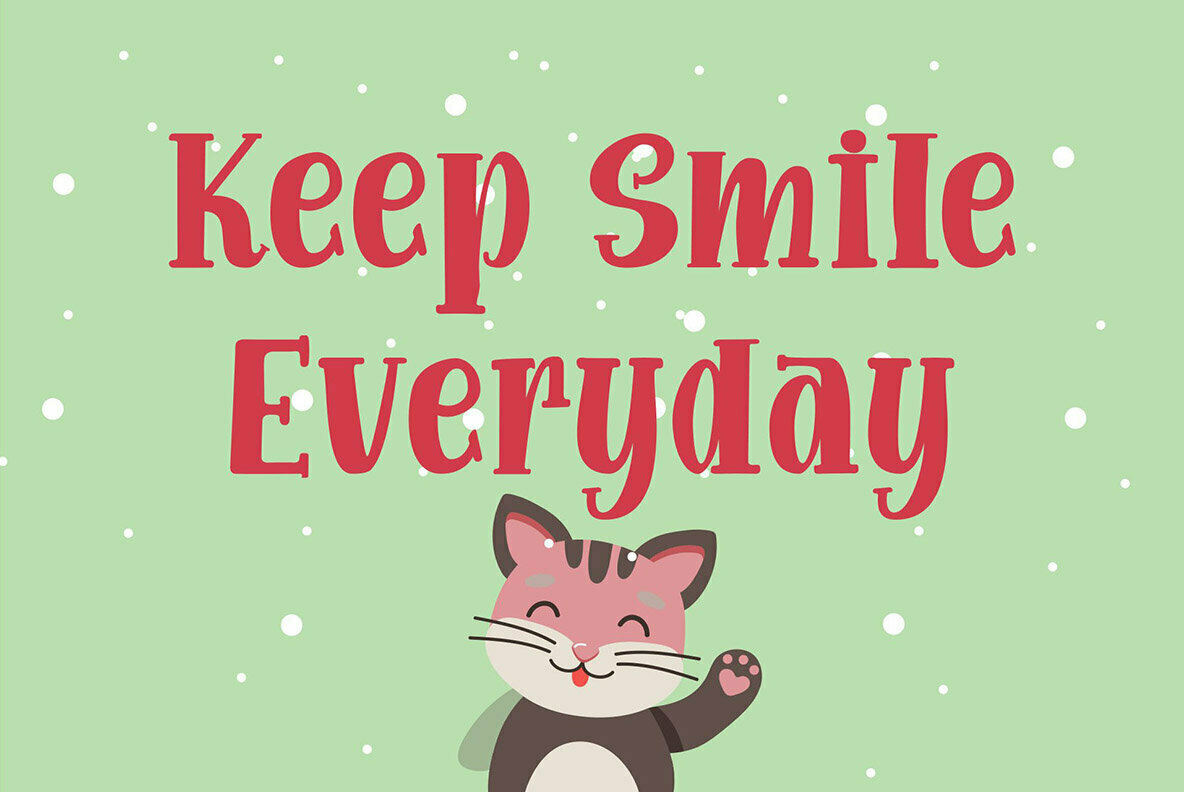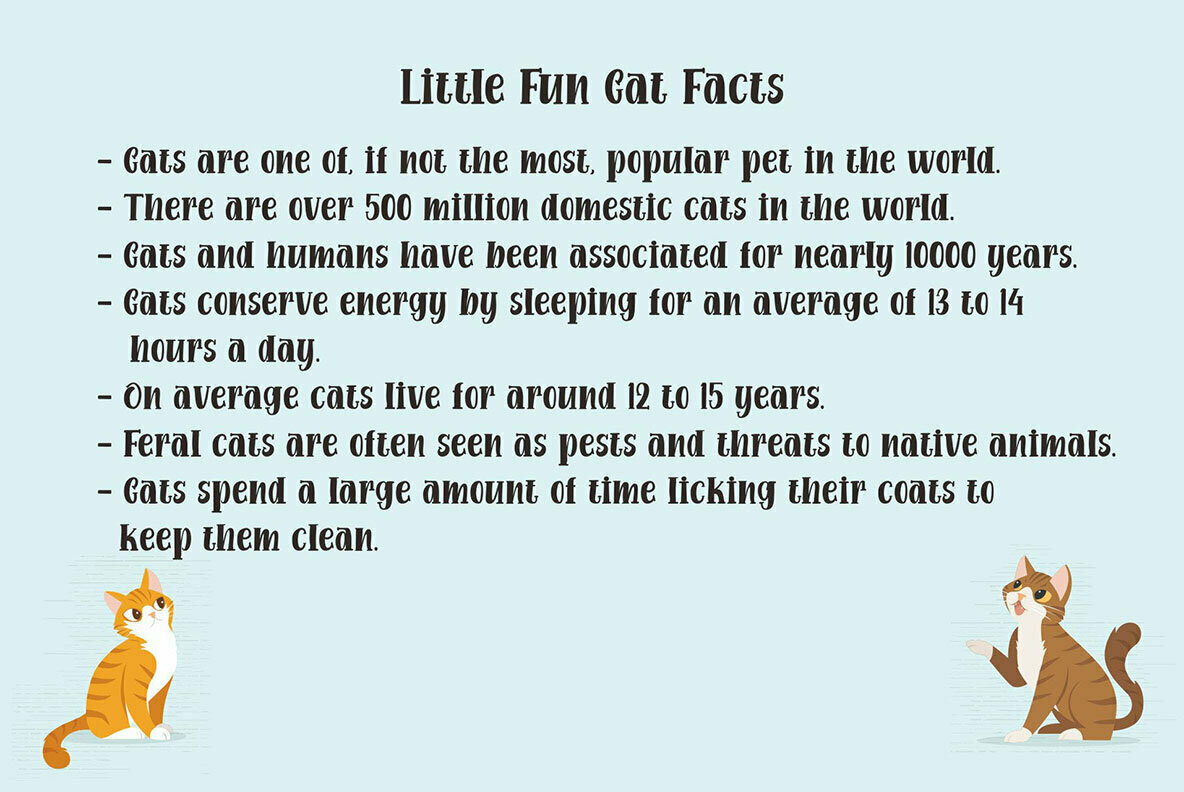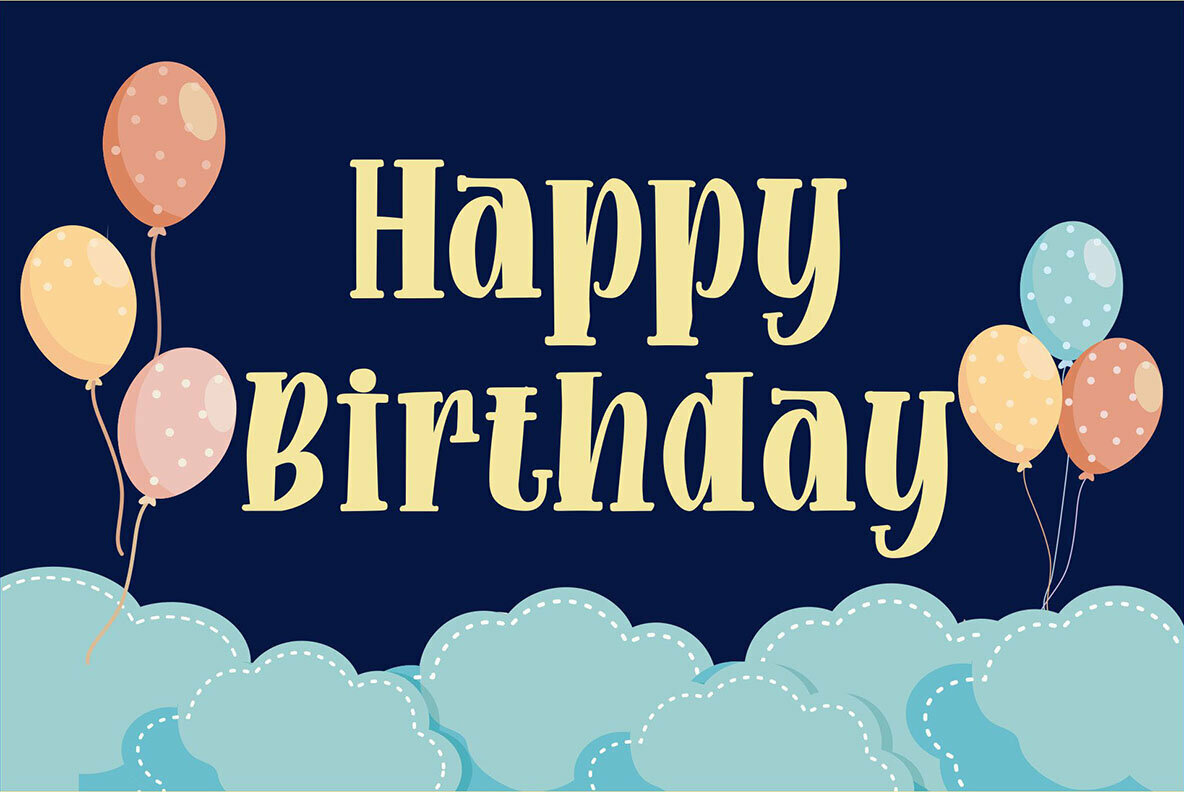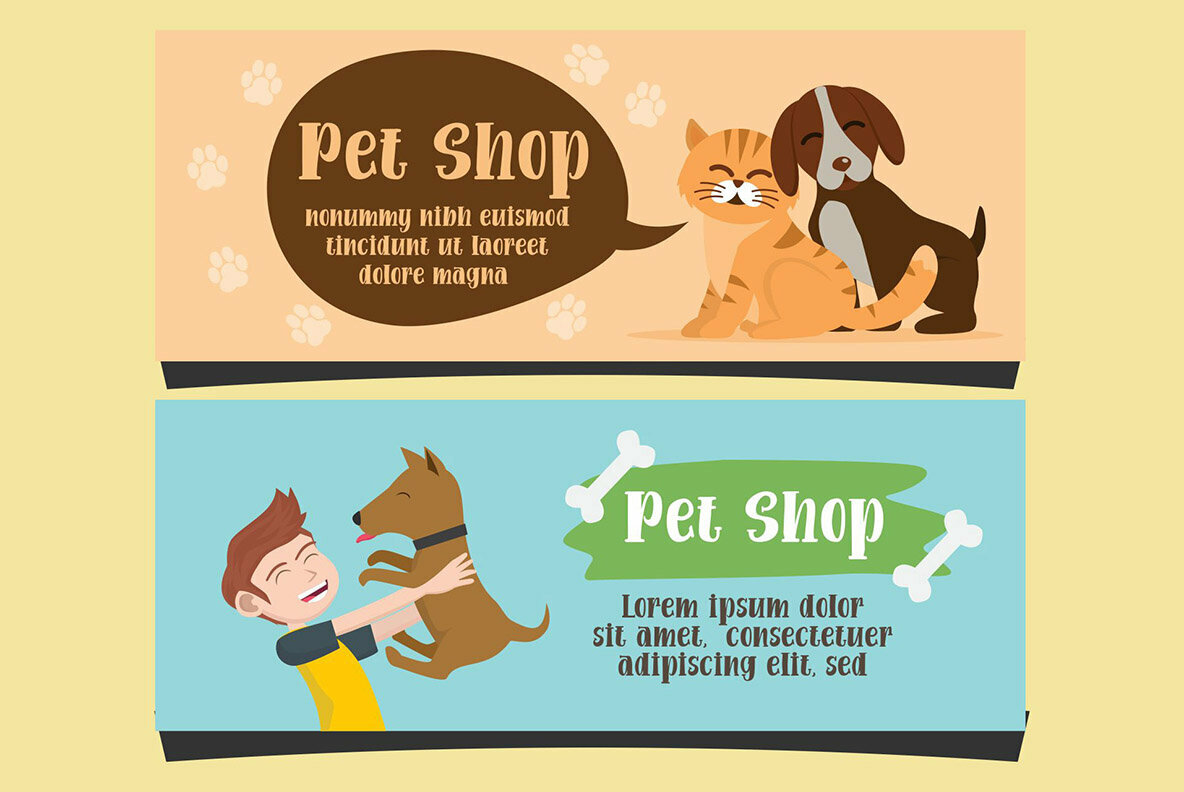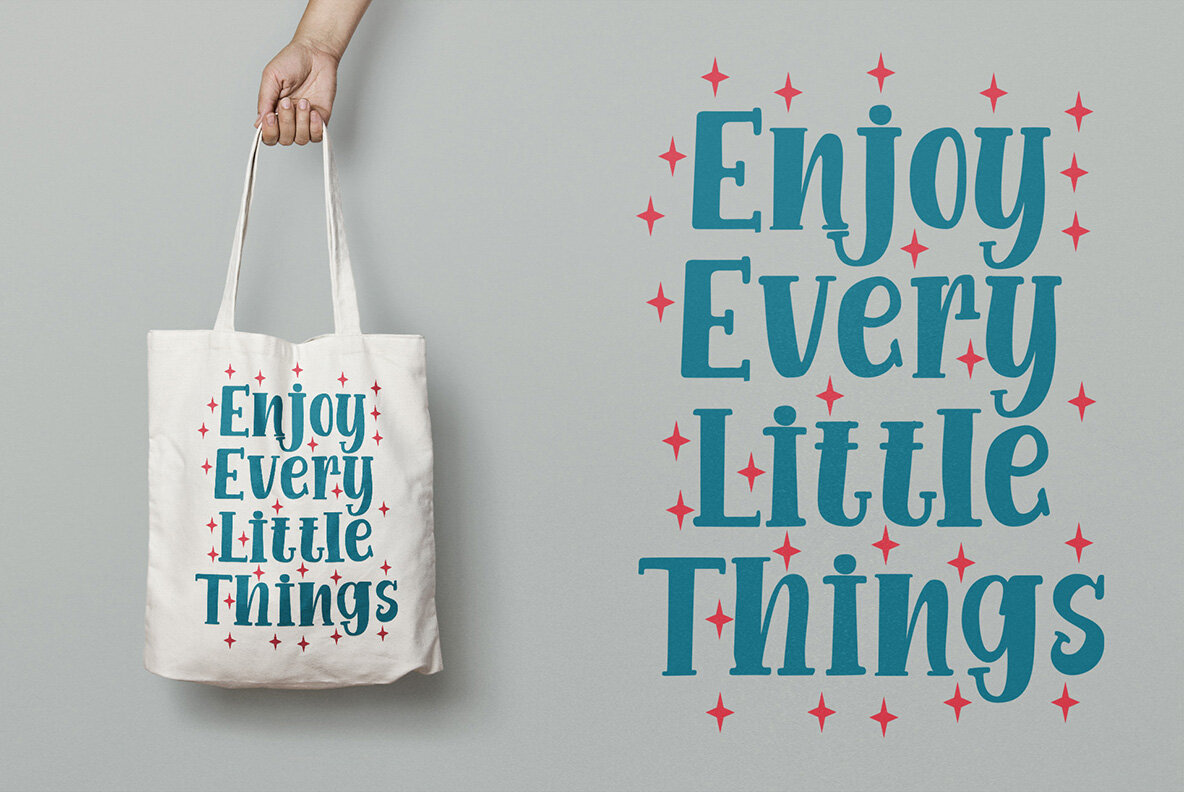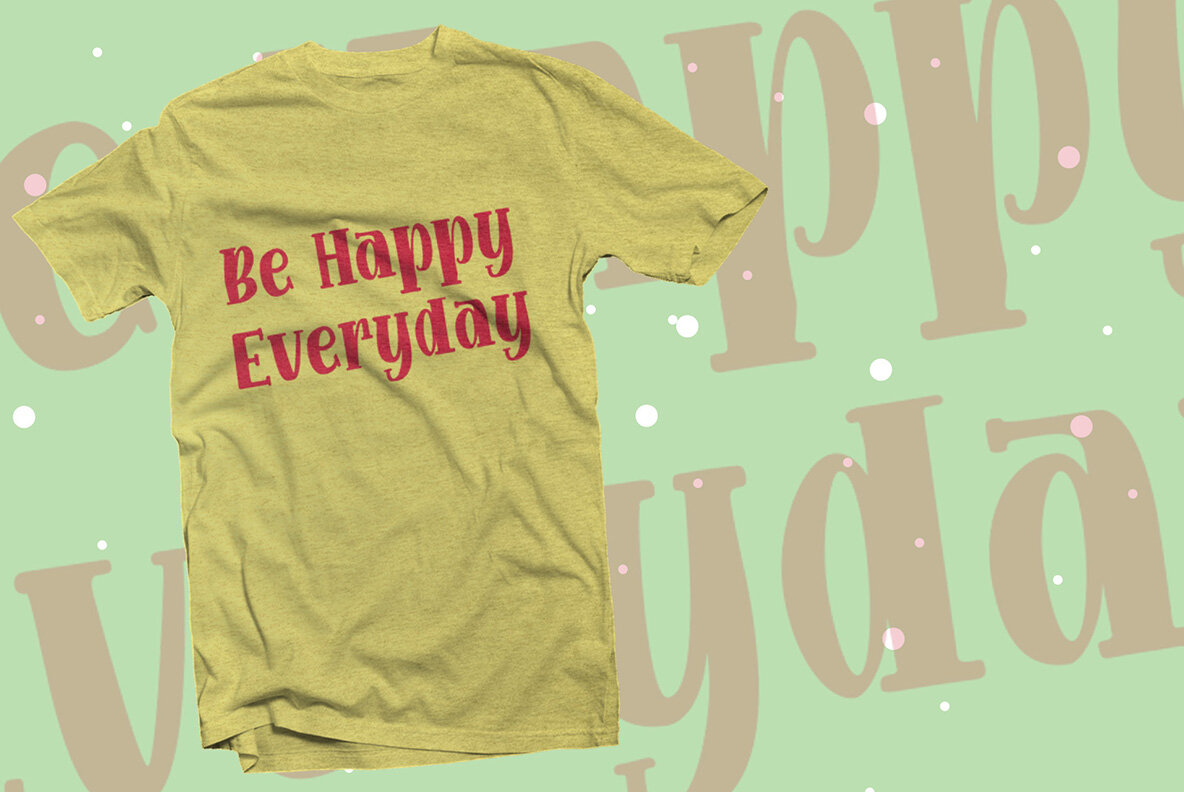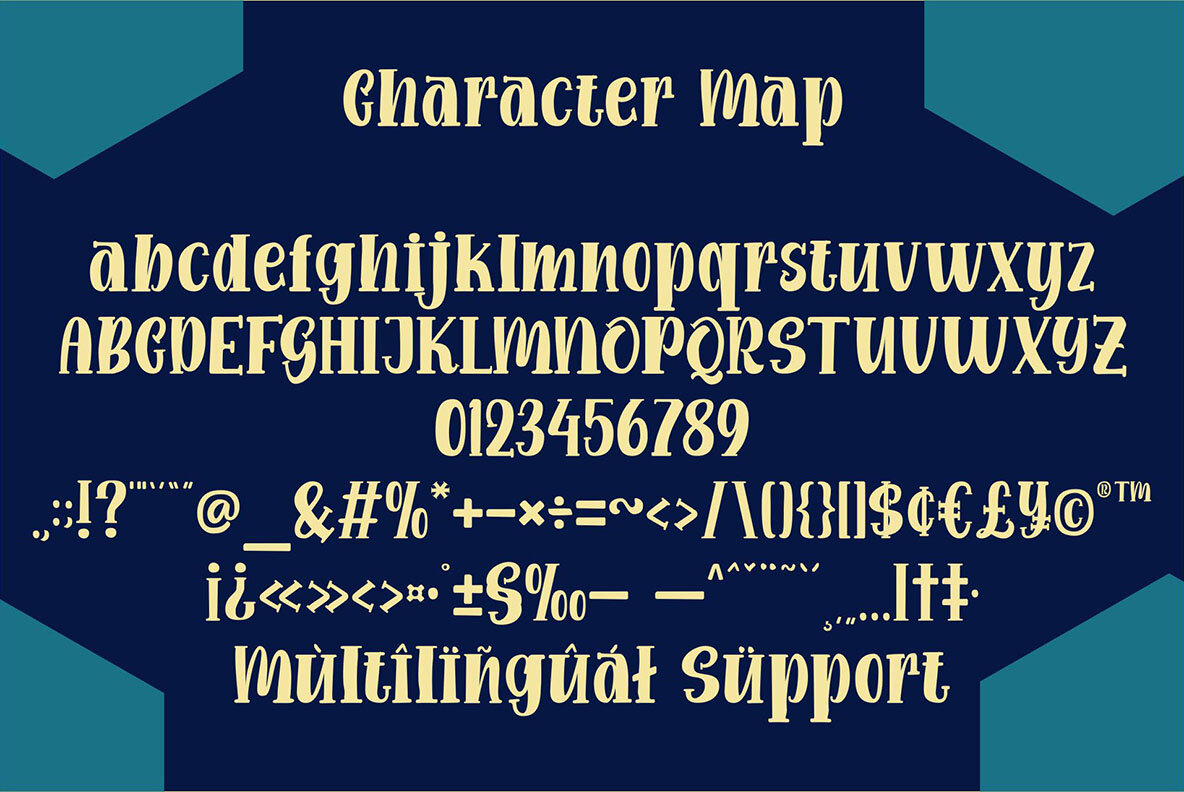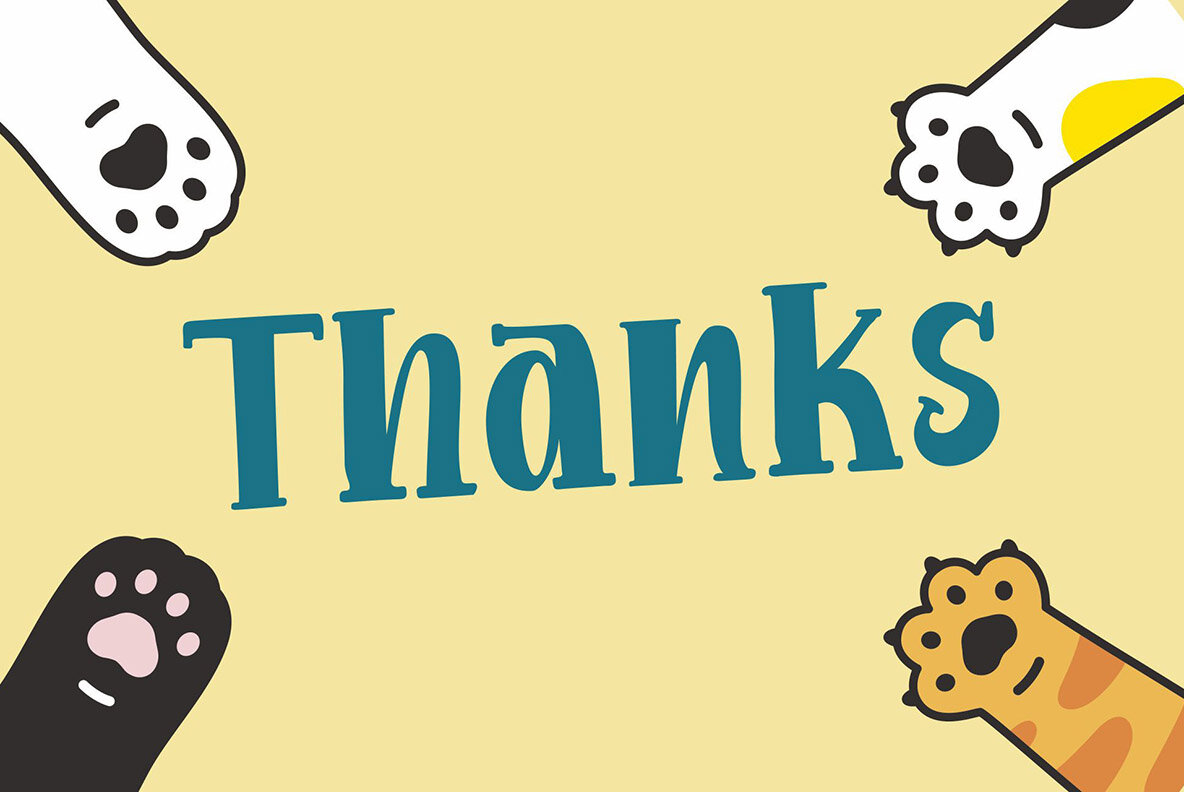
Funny Gang Font
Funny Gang
Funny Gang brings a playful and whimsical touch to your design endeavors. Inspired by a bouncy and quirky aesthetic, this font is ideally suited for a wide range of creative contexts, from book covers to posters, t-shirts, quotes, logotypes, and crafts. Funny Gang supports a comprehensive array of multilingual accents, ensuring that your designs can communicate effectively across diverse languages.Funny Gang: A Quirky Typeface for Creative Projects
Multilingual Accent Support